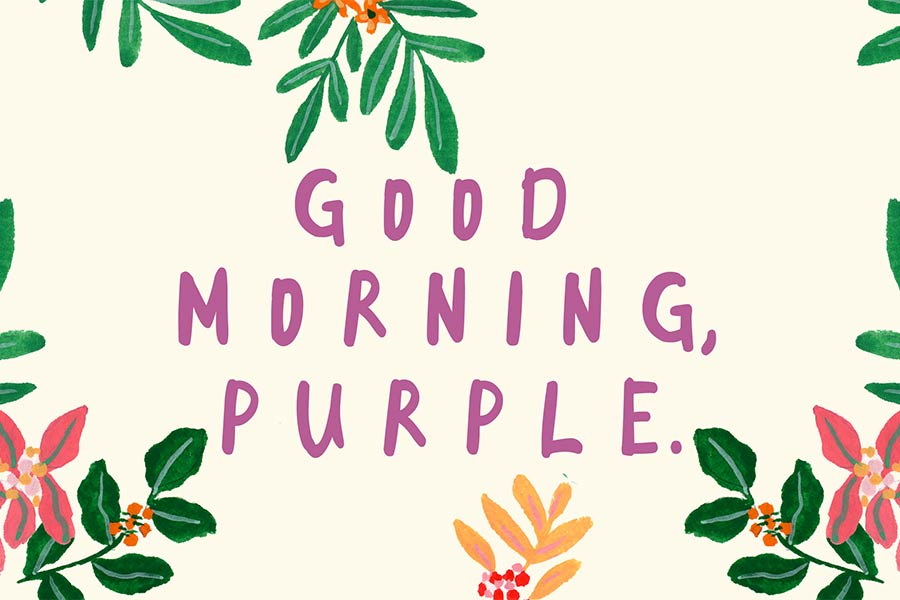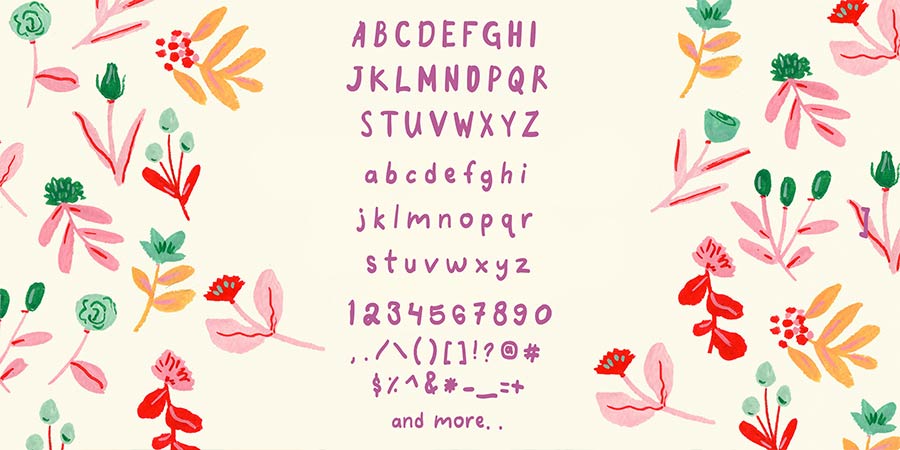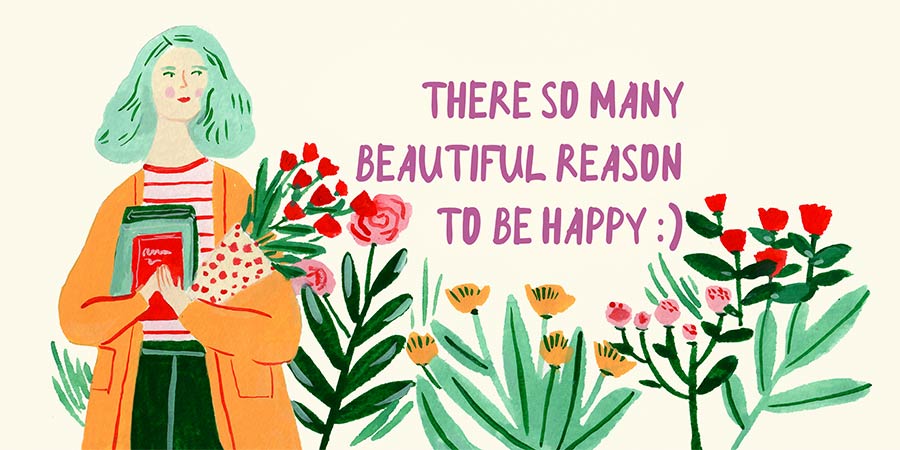
Good Morning Purple is a fun handwritten sans serif font. Its casualness of the font design makes it a great font for complementing designs that convey cheerfulness and naiveness.
It comes with the standard latin characters and is highly legible for headline and body text designs. You can download this font for free for personal use.
- Designer: Fauzan Mizan